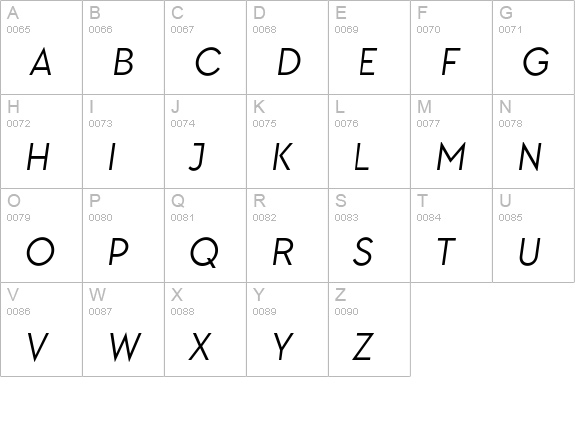
TT Chocolates Italic Font Details
TT Chocolates Italic is a distinctive, italic variant in the TT typeface family \xE2\x80\x94 well suited to design and typography projects.
TT Chocolates Italic font is a modern and elegant typeface perfect for adding a touch of sophistication to any design project. With its delicate curves and stylish letterforms, this font exudes luxury and class. The italic style of TT Chocolates adds a dynamic and artistic flair, making it a versatile choice for both print and digital applications. What's even better is that TT Chocolates Italic font is available for free download at FontsMarket.com. You can enhance your projects with this exquisite font without any cost, making it a valuable addition to your typographic toolkit. So go ahead and elevate your designs with TT Chocolates Italic - the perfect blend of style and accessibility.